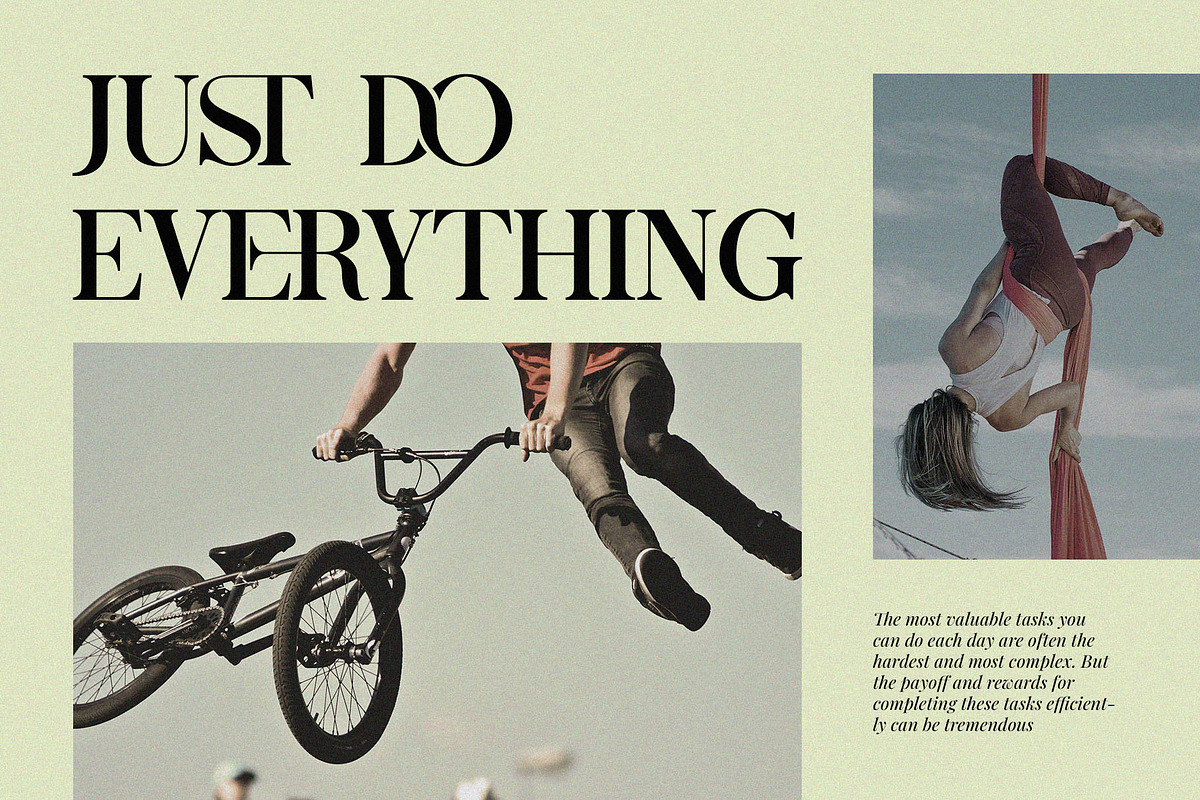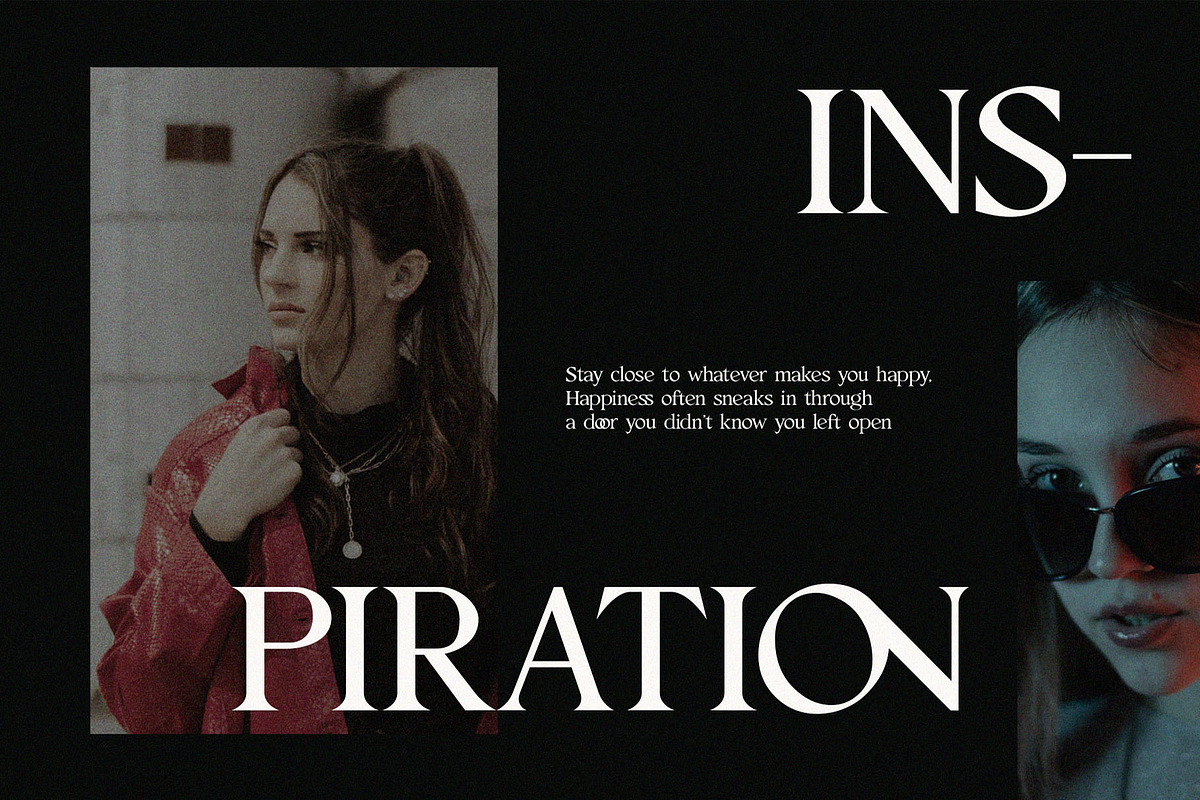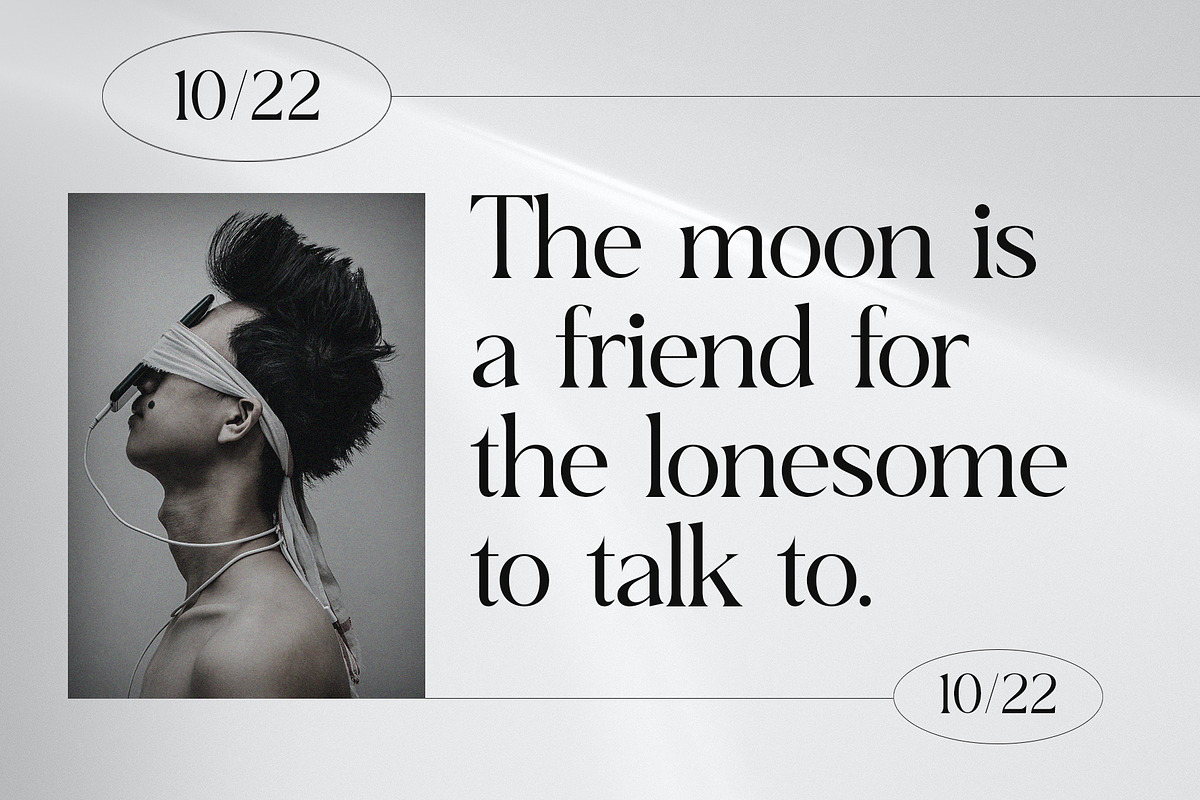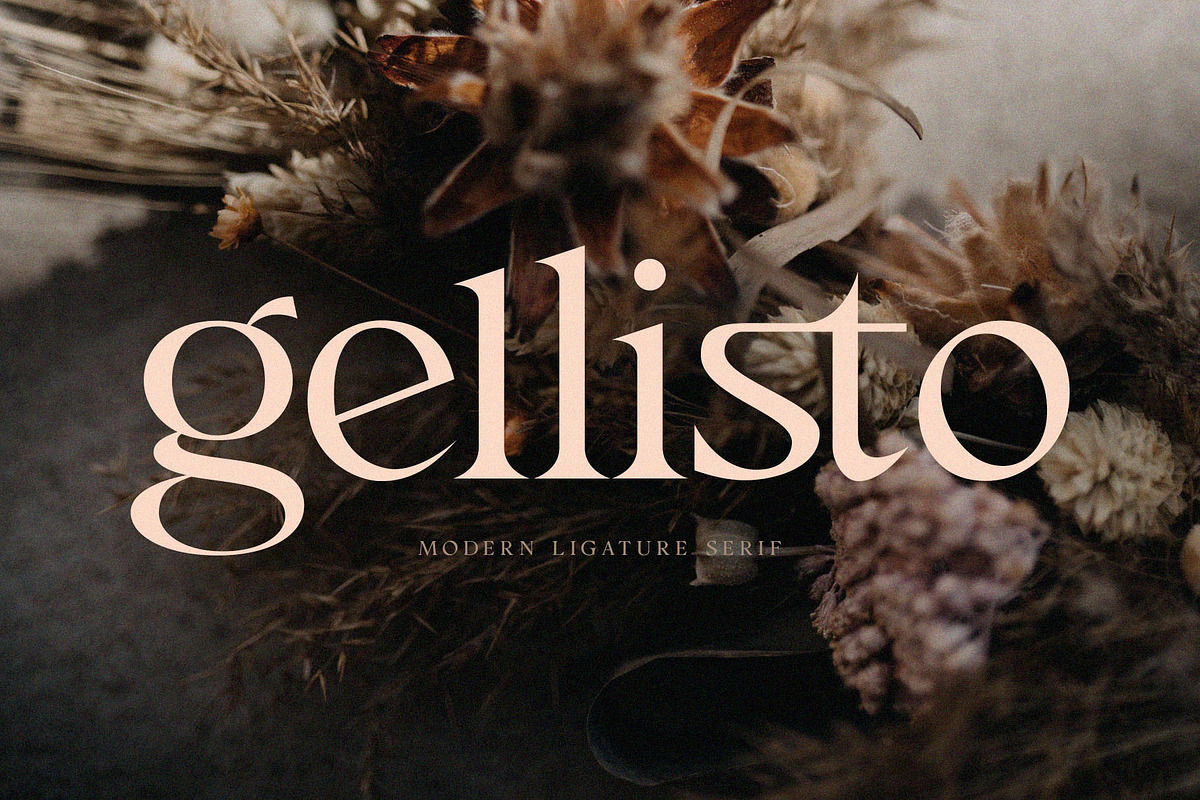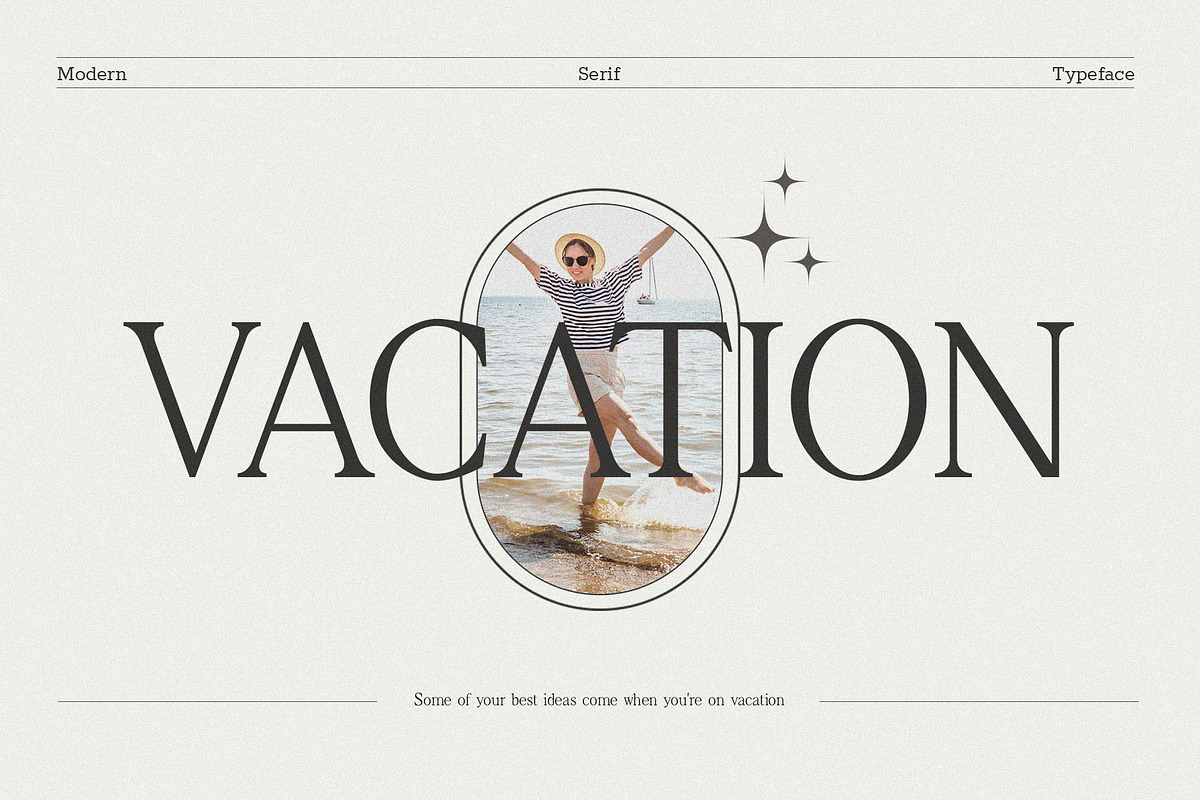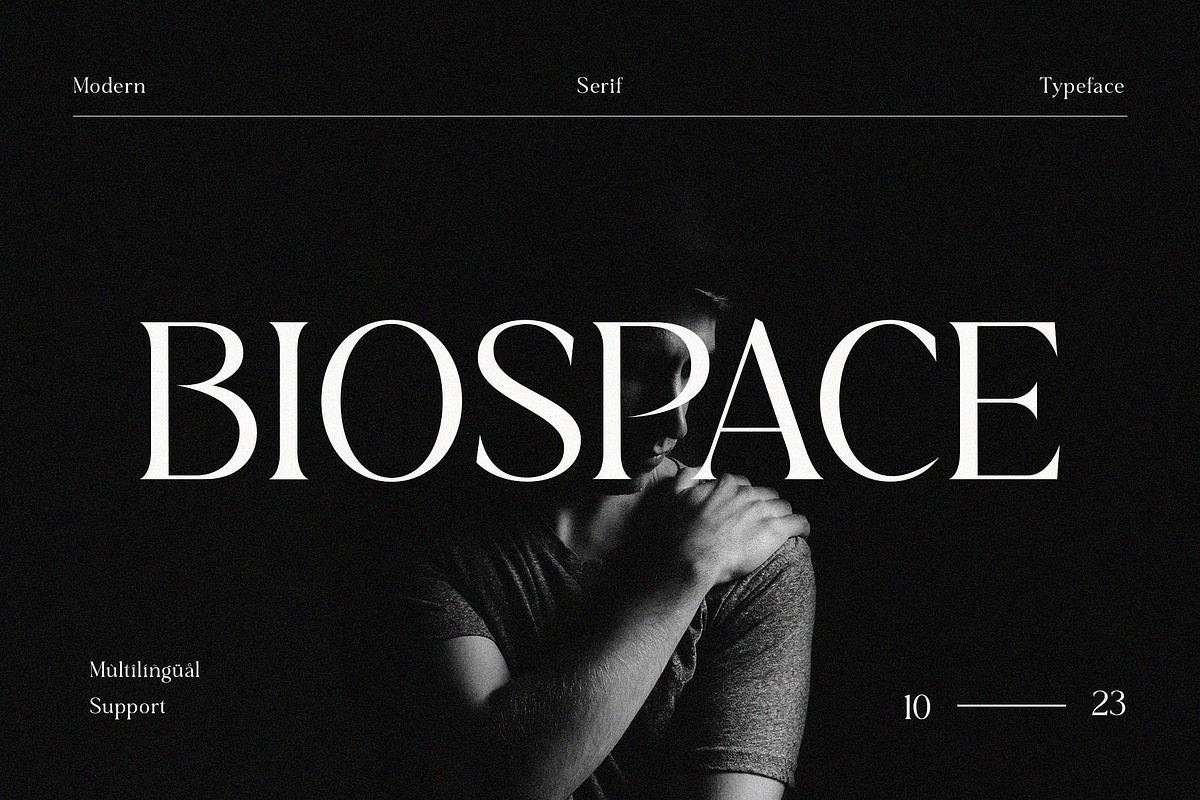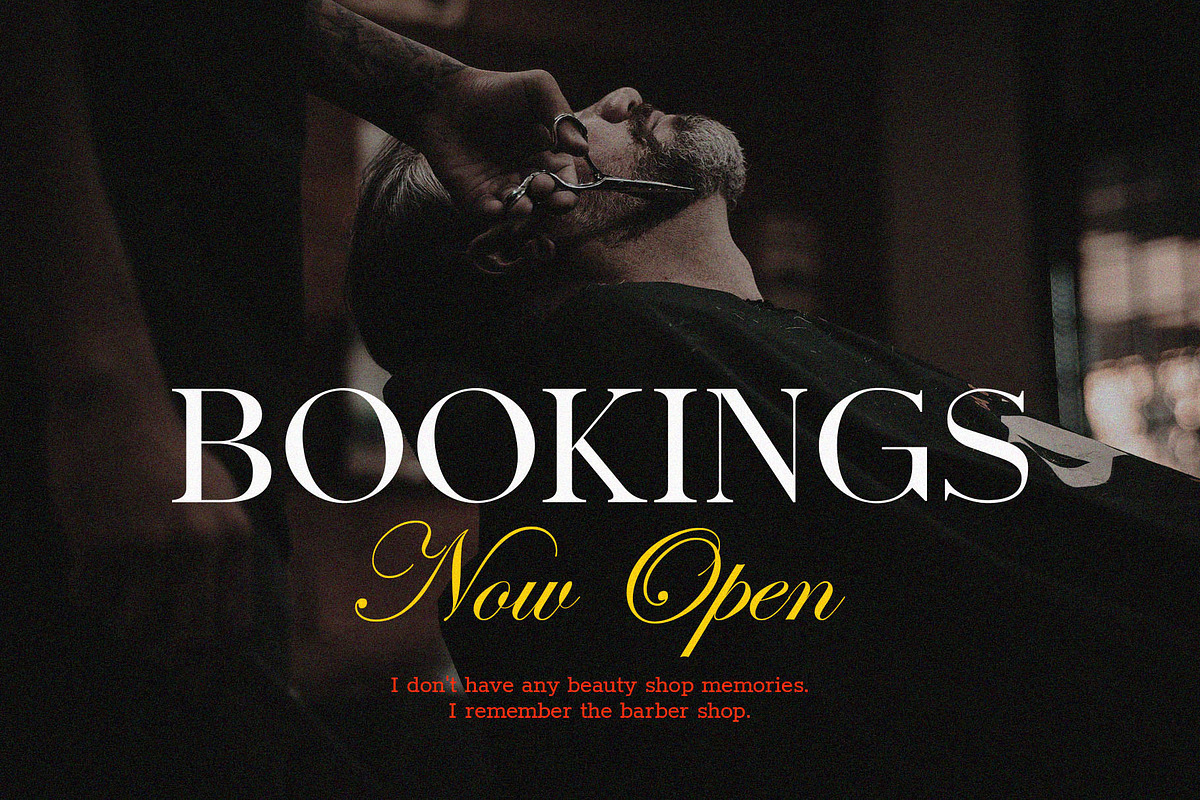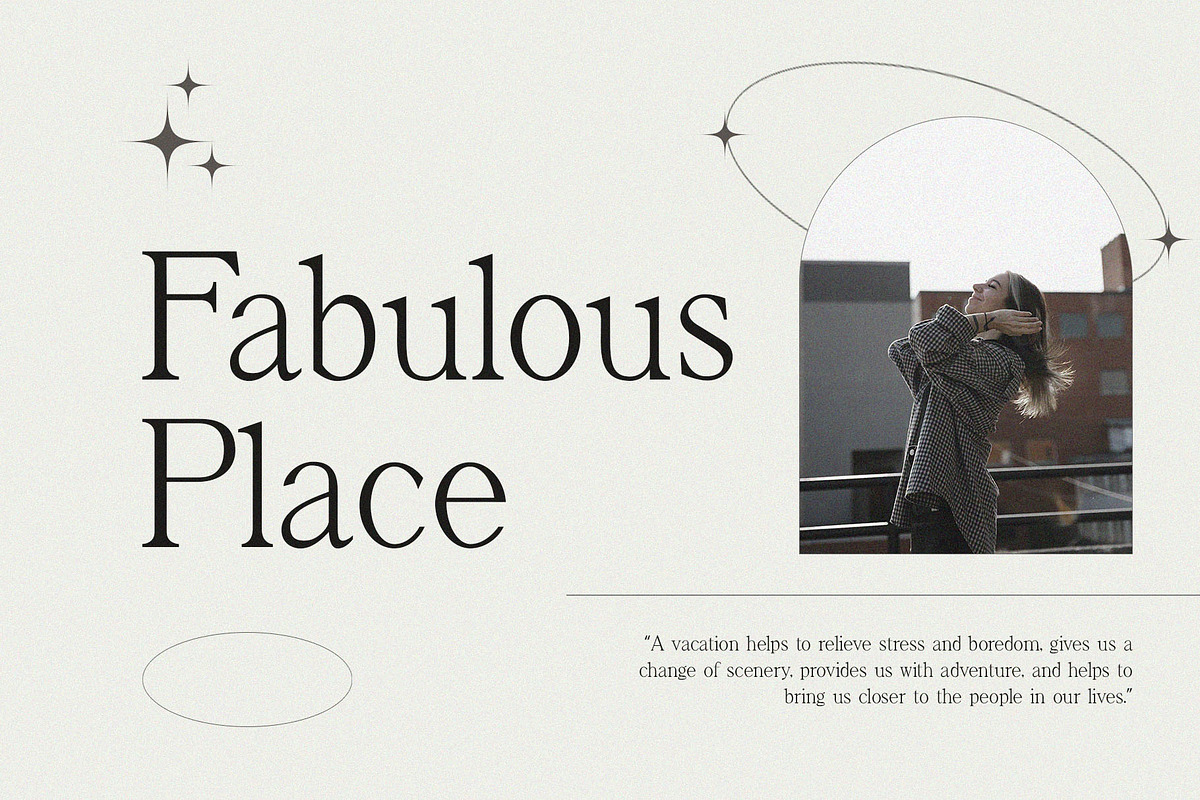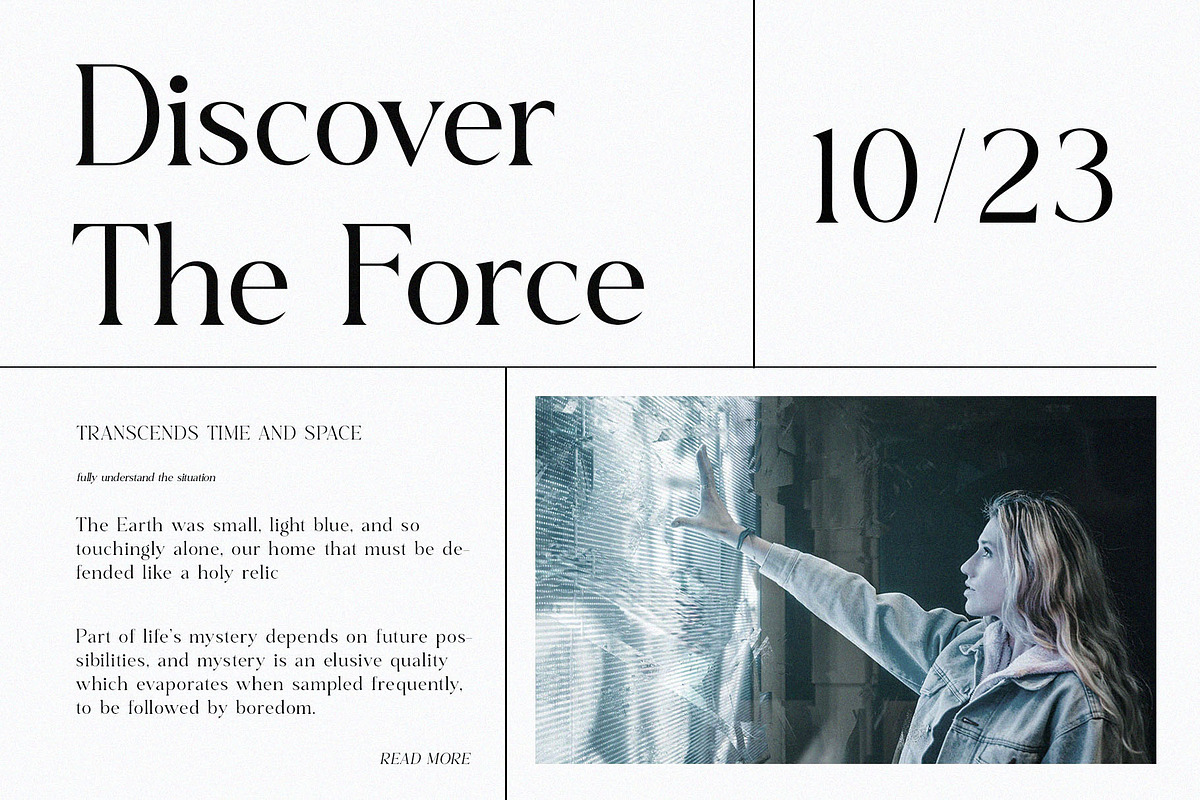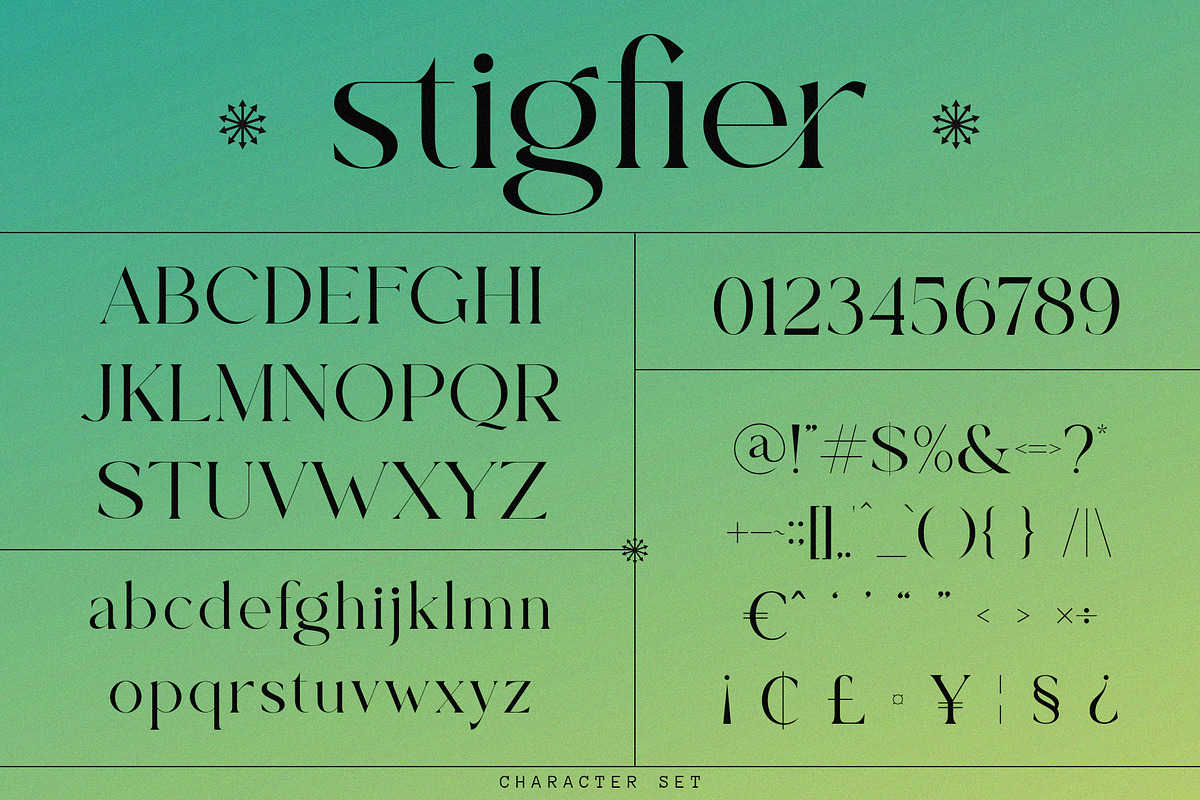
Fantastic Font Bundle
A beautiful series of letters is encapsulated in this 'Fantastic Font Bundle'. Neat lettering is perfect for writing needs that are modern and pleasing to the eye, there is a Modern impression but still looks Elegant when used for writing. Tidiness in the manufacture of each letter, is our top priority. You can have fun and be creative using this font product we made, because the results will definitely be very satisfying. There are several additional features, in the form of ligatures and alternates to support your creativity. and of course multi language support as well.
This font is ready to be used to support your next design needs.